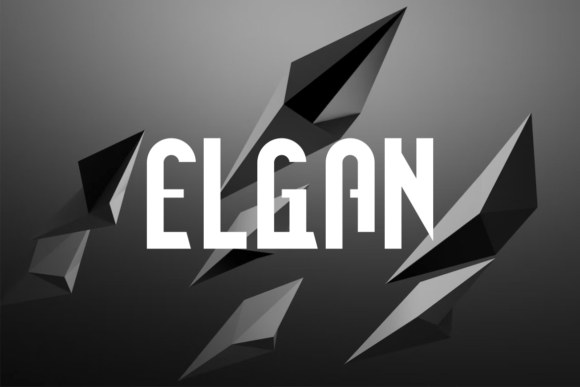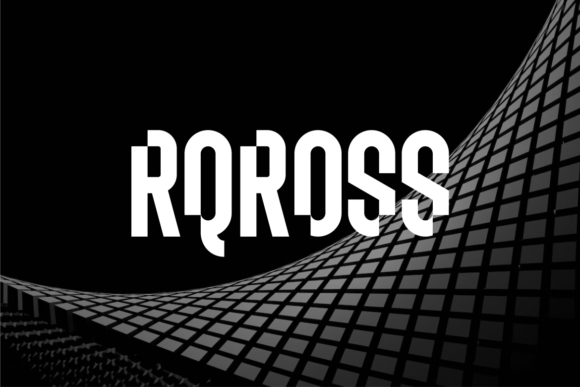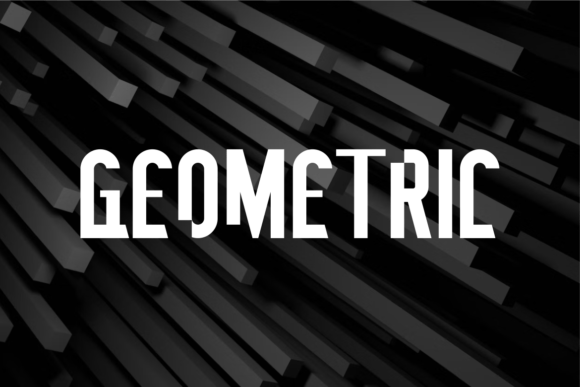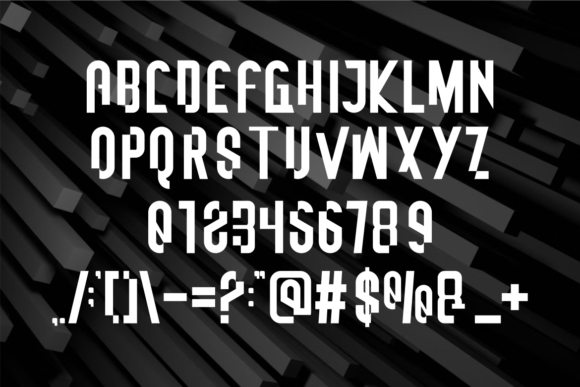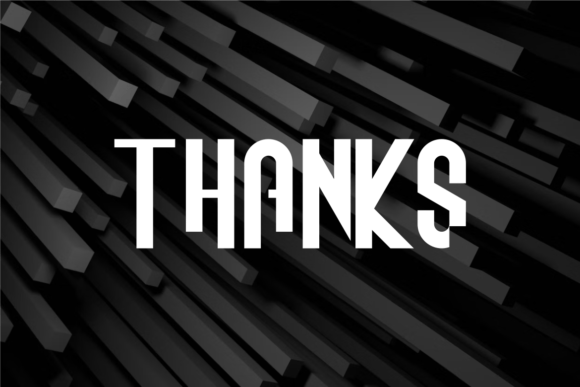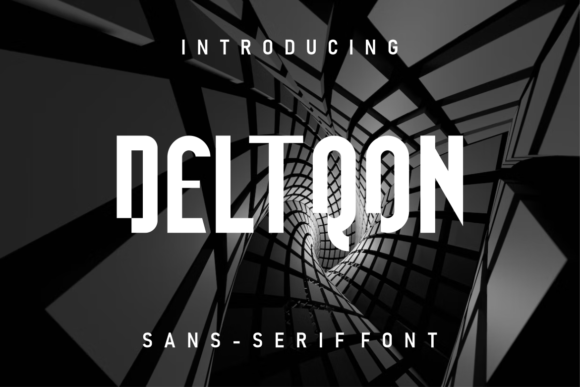
Deltqon Font: Elevate Your Designs with a Cool and Modern Display Font
Are you tired of using the same old fonts in your designs? Look no further than Deltqon, a cool and modern display font that’s sure to take your projects to the next level. With its unique and stylish aesthetic, Deltqon is the perfect addition to any designer’s toolkit. In this article, we’ll explore the features and benefits of Deltqon, and show you how to make the most of this amazing font.
What is Deltqon Font?
Deltqon is a modern display font designed to make a statement. Its sleek and contemporary design makes it perfect for use in a variety of projects, from posters and flyers to logos and branding materials. With its bold and eye-catching style, Deltqon is sure to grab attention and leave a lasting impression.
Key Features of Deltqon Font
- Unique and Stylish Aesthetic: Deltqon has a distinctive and stylish aesthetic that’s sure to set your designs apart from the crowd.
- Modern and Bold Design: With its bold and modern design, Deltqon is perfect for use in a variety of projects, from posters and flyers to logos and branding materials.
- High-Quality Typography: Deltqon features high-quality typography, with clean lines and precise curves that make it perfect for use in both digital and print projects.
- Easily Readable: Despite its bold and stylized design, Deltqon is easily readable, making it perfect for use in a variety of applications.
Benefits of Using Deltqon Font
So why should you choose Deltqon for your next design project? Here are just a few benefits of using this amazing font:
- Adds a Professional Touch: With its sleek and modern design, Deltqon adds a professional touch to any project, making it perfect for use in business and marketing materials.
- Grabs Attention: Deltqon’s bold and eye-catching style is sure to grab attention and leave a lasting impression on your audience.
- Versatile: Deltqon is a versatile font that can be used in a variety of projects, from posters and flyers to logos and branding materials.
- Easy to Use: Deltqon is easy to use and can be easily integrated into your design workflow.
How to Use Deltqon Font in Your Designs
Using Deltqon in your designs is easy. Here are a few tips to get you started:
- Pair with Other Fonts: Deltqon pairs well with other fonts, making it easy to create visually appealing and cohesive designs.
- Experiment with Different Sizes: Deltqon looks great in a variety of sizes, from small and subtle to large and bold.
- Use in Digital and Print Projects: Deltqon is perfect for use in both digital and print projects, making it a versatile addition to your design toolkit.
In conclusion, Deltqon is a cool and modern display font that’s sure to elevate your designs to the next level. With its unique and stylish aesthetic, bold and eye-catching style, and high-quality typography, Deltqon is the perfect addition to any designer’s toolkit. Whether you’re working on a poster, flyer, logo, or branding materials, Deltqon is sure to make a lasting impression. So why wait? Add Deltqon to your projects today and see the amazing outcome for yourself!